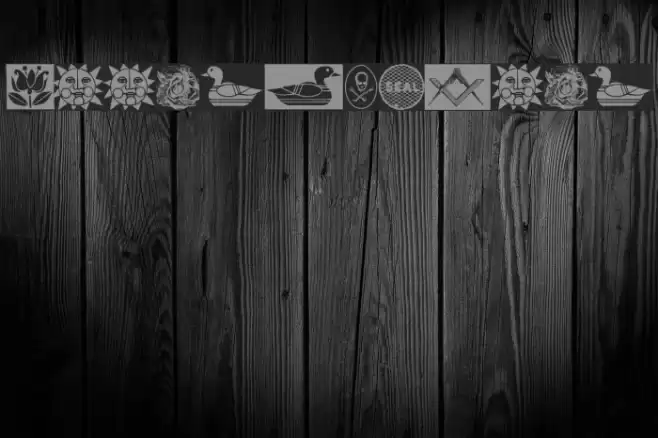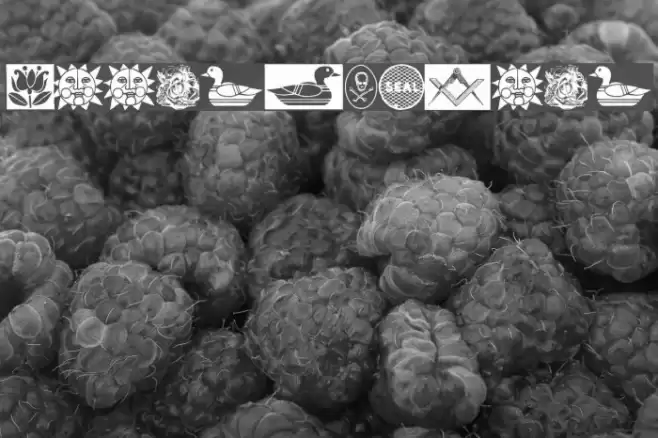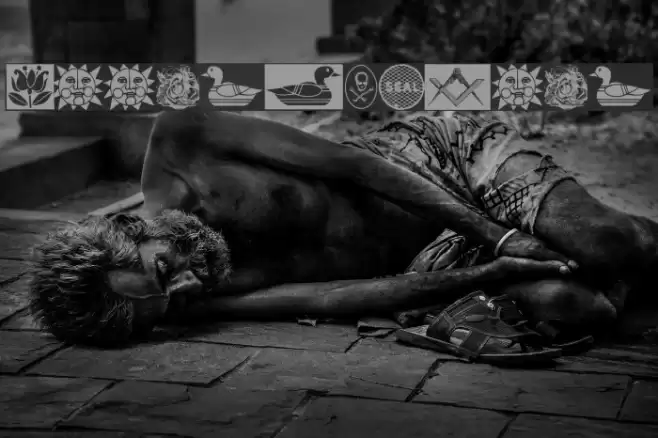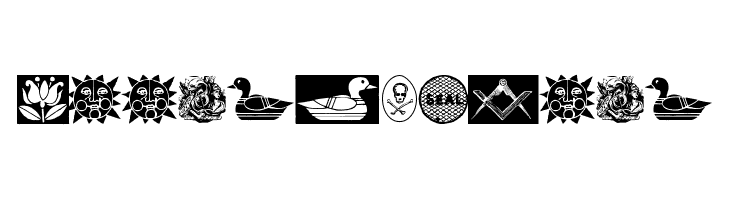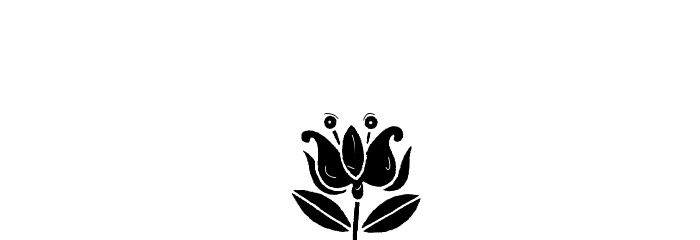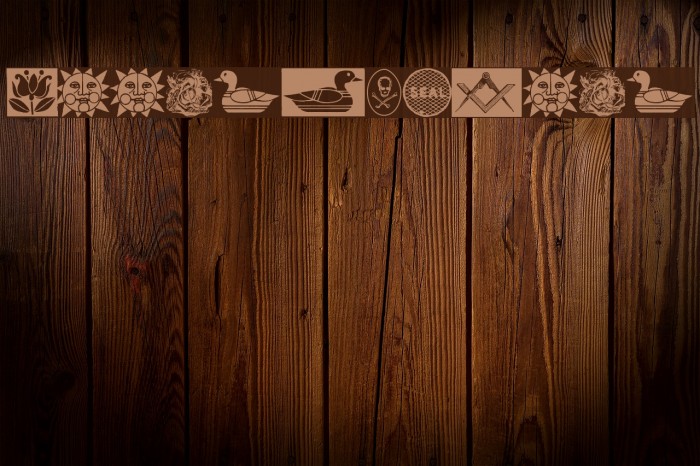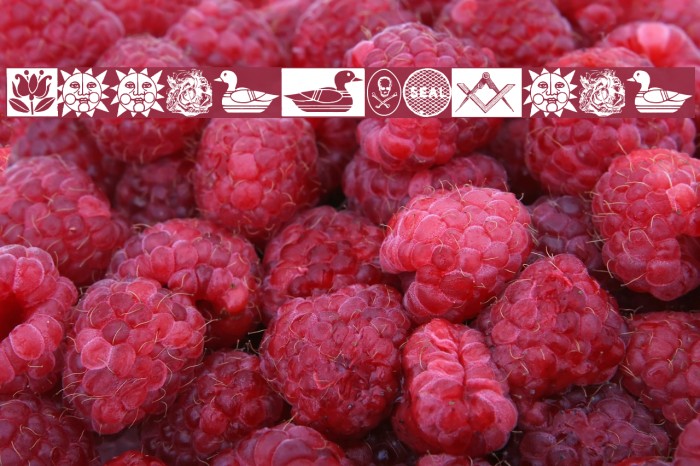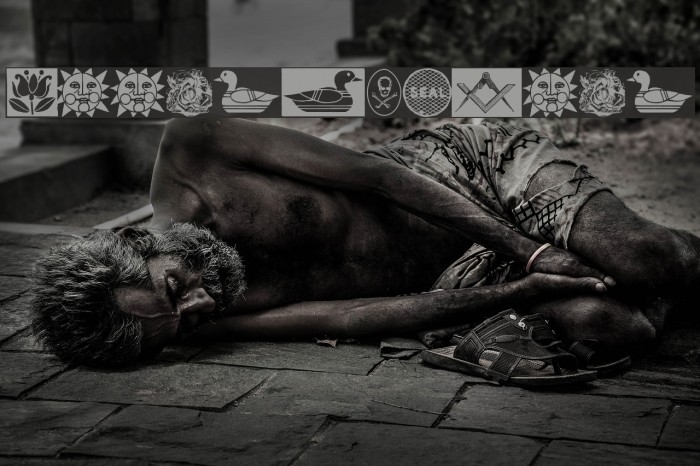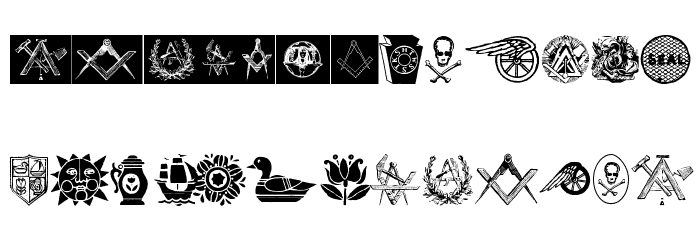
ToolsSymbols Font
ToolsSymbols Description
A decorative symbol font featuring a variety of intricate emblems, icons, and pictograms including tools, floral motifs, nautical elements, and Masonic-inspired insignias. The glyphs are highly detailed, mostly monochrome, and designed with strong contrast between black and white areas.
A detailed decorative symbol font with emblems and pictograms from Uncategorized fonts.
- Proposed Projects: Ideal for certificates, themed invitations, historical documents, insignia design, and illustrative projects requiring symbolic or heraldic elements.
- Overall Style: Decorative, Vintage, Heraldic
- Use Case: Logos, Certificates, Decorative borders, Themed graphics